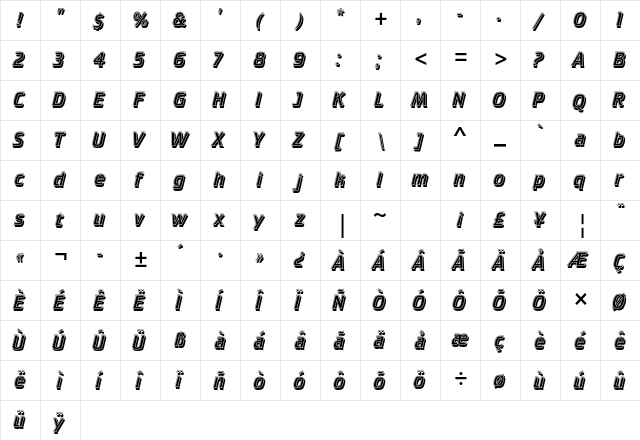
Crillee Italic Inline Shad Std Regular
| Designer | Vince Whitlock |
Design Context for Crillee Italic Inline Shad Std Typeface
Crillee Italic Inline Shad Std is built around its visual character rather than neutral utility — its distinctive forms are designed to make an impression at display sizes. Its italic angle brings a sense of urgency and motion to the letterforms.
Font Pairing: Pair with a clean neutral sans-serif for body copy to let Crillee Italic Inline Shad Std's character lead without overwhelming the composition.
Pro Tip: Use Crillee Italic Inline Shad Std exclusively at display sizes — it was designed to be seen, not read at length. Let a neutral companion handle body copy.